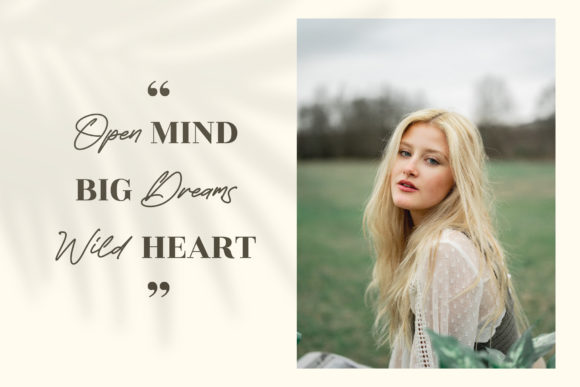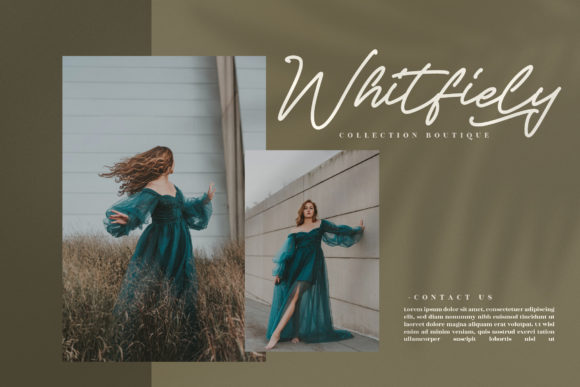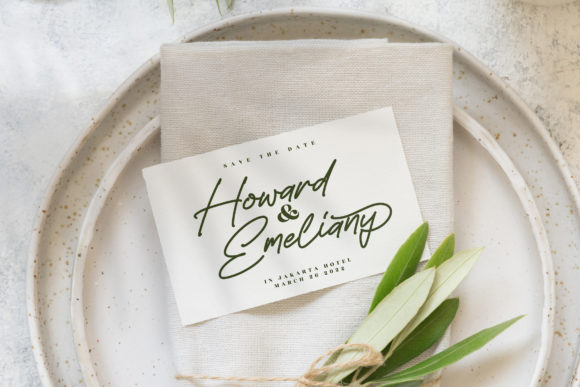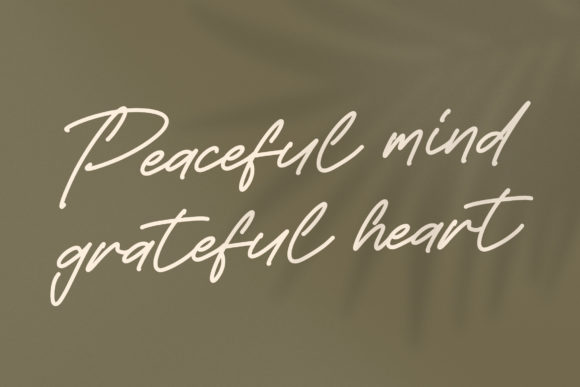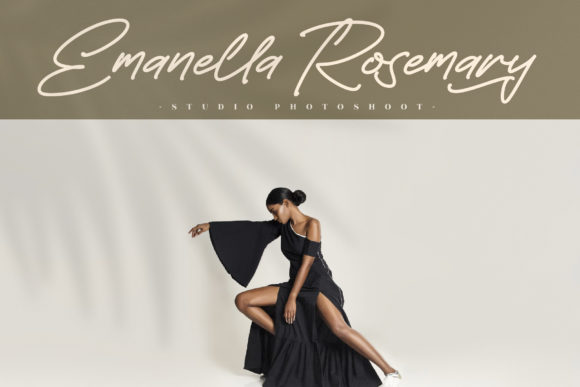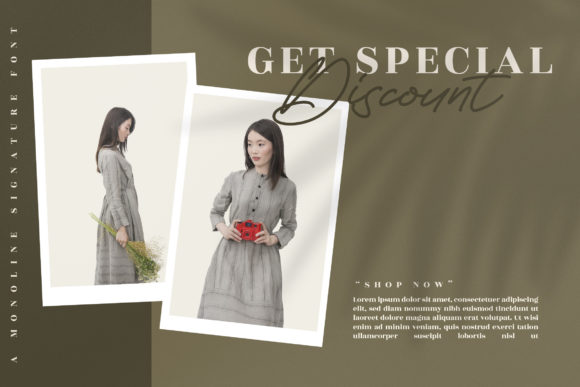
The Quest for the Perfect Script Font: Discovering Gallegos
Ah, the elusive perfect font. You know, that one that makes your design project go from meh to mesmerizing. I’ve been there, done that, and got the t-shirt (which, coincidentally, I designed using a fabulous script font). It was a branding project for a boutique client, and I was on the hunt for a font that exuded elegance, sophistication, and a dash of whimsy. That’s when I stumbled upon Gallegos – Monoline Signature Font.
First Impressions: A Love Letter to Gallegos
Gallegos is a stunning script font that has captured my heart, and I’m excited to share its charm with you. Here’s what I love about it:
- ✨ Elegant, monoline strokes that scream sophistication
- ✅ PUA encoded for easy access to glyphs and ligatures
- 💫 Perfect for a wide range of projects, from logos to t-shirts, and from posters to packaging
- 🔥 Highly versatile, with a tone that’s both modern and vintage
The Honest Review: No Sugarcoating Here
While Gallegos is an amazing font, it’s not without its quirks. Here are a few things to keep in mind:
- 🤔 Limited use in very formal or traditional contexts, due to its modern, artistic vibe
- ⚠️ May require some kerning adjustments, depending on your design software and project specifics
The Story Behind Gallegos: A Designer’s Inspiration
Gallegos was crafted with love and attention to detail, inspired by the beauty of handwritten scripts. The designer aimed to create a font that would bring a touch of sophistication and artistry to any project. While the exact story behind Gallegos might be unknown, its elegant lines and charming ligatures reveal a deep passion for typography and design.
| Font Name | Gallegos Font |
| What is Gallegos font best used for? | Gallegos is versatile and can be used for logos, branding projects, homeware designs, product packaging, and more. |
| Is Gallegos suitable for body text? | While Gallegos is beautiful, it’s best suited for headlines, titles, and short paragraphs due to its script nature. |
| Does Gallegos support multiple languages? | As a PUA-encoded font, Gallegos offers extended character support, but it’s best to check the font’s specifications for specific language support. |
In conclusion, Gallegos – Monoline Signature Font is a stunning addition to any designer’s toolkit. Its elegant lines, charming ligatures, and versatility make it perfect for a wide range of projects. With its PUA encoding and OpenType features, Gallegos is sure to bring a touch of sophistication and artistry to your designs.